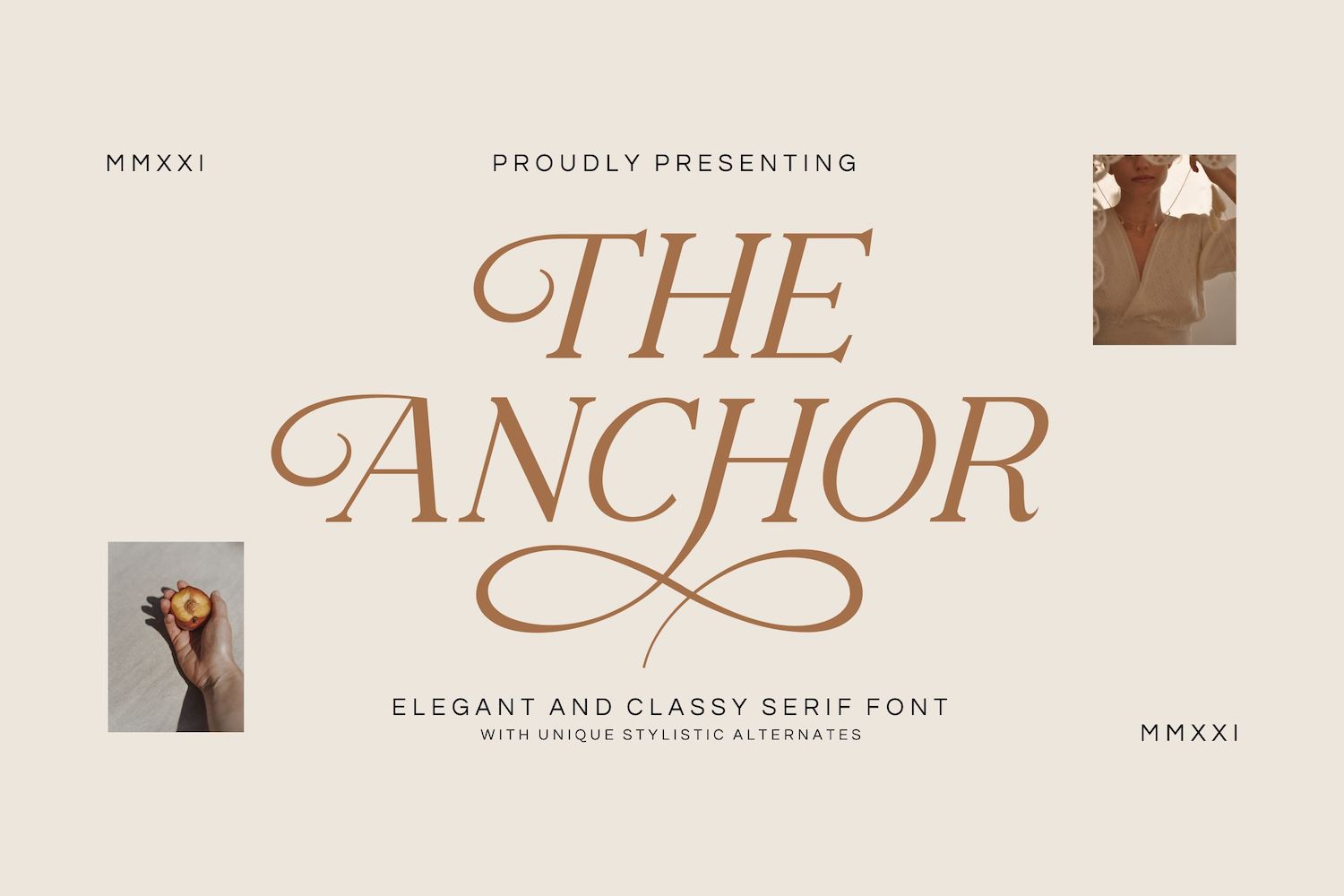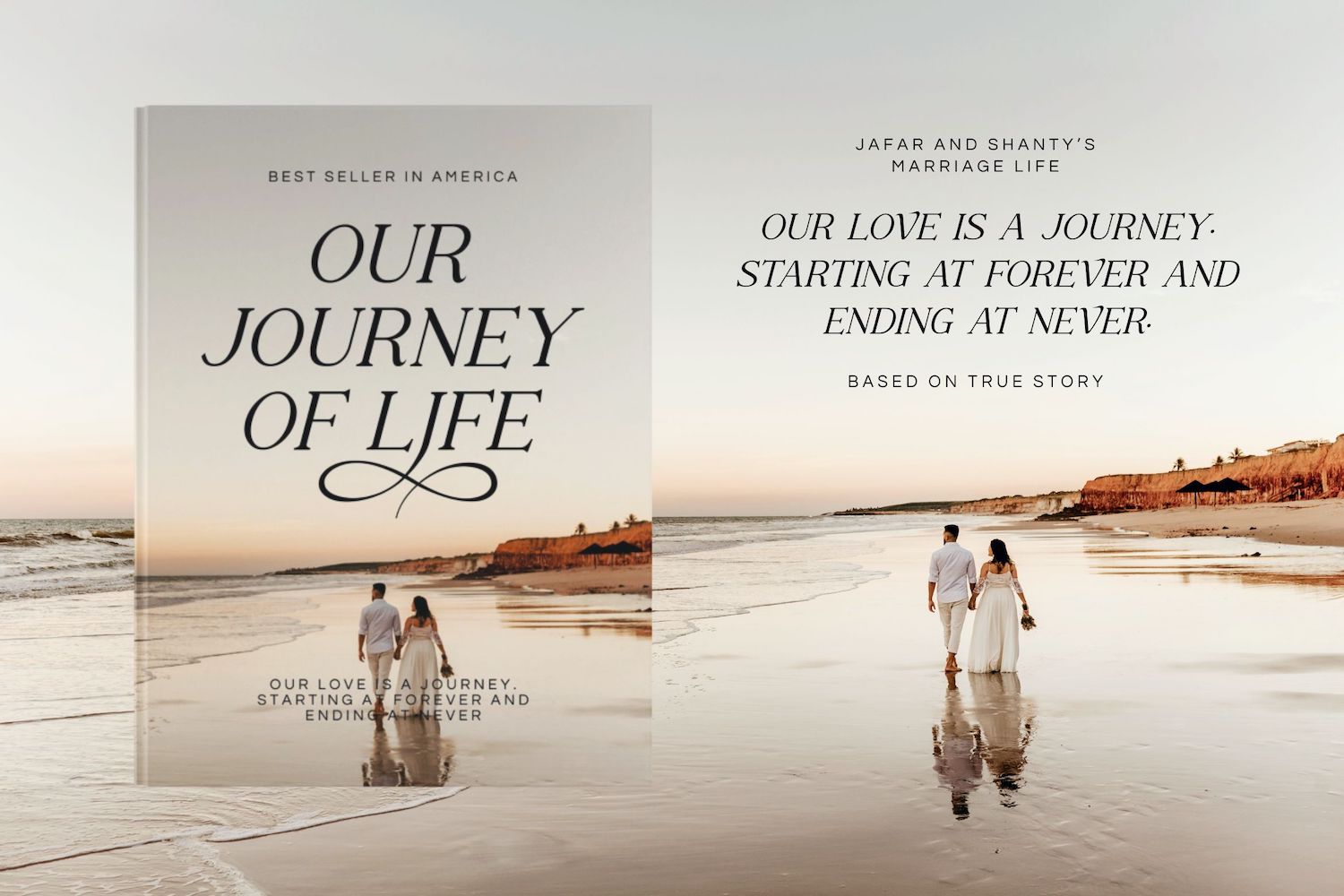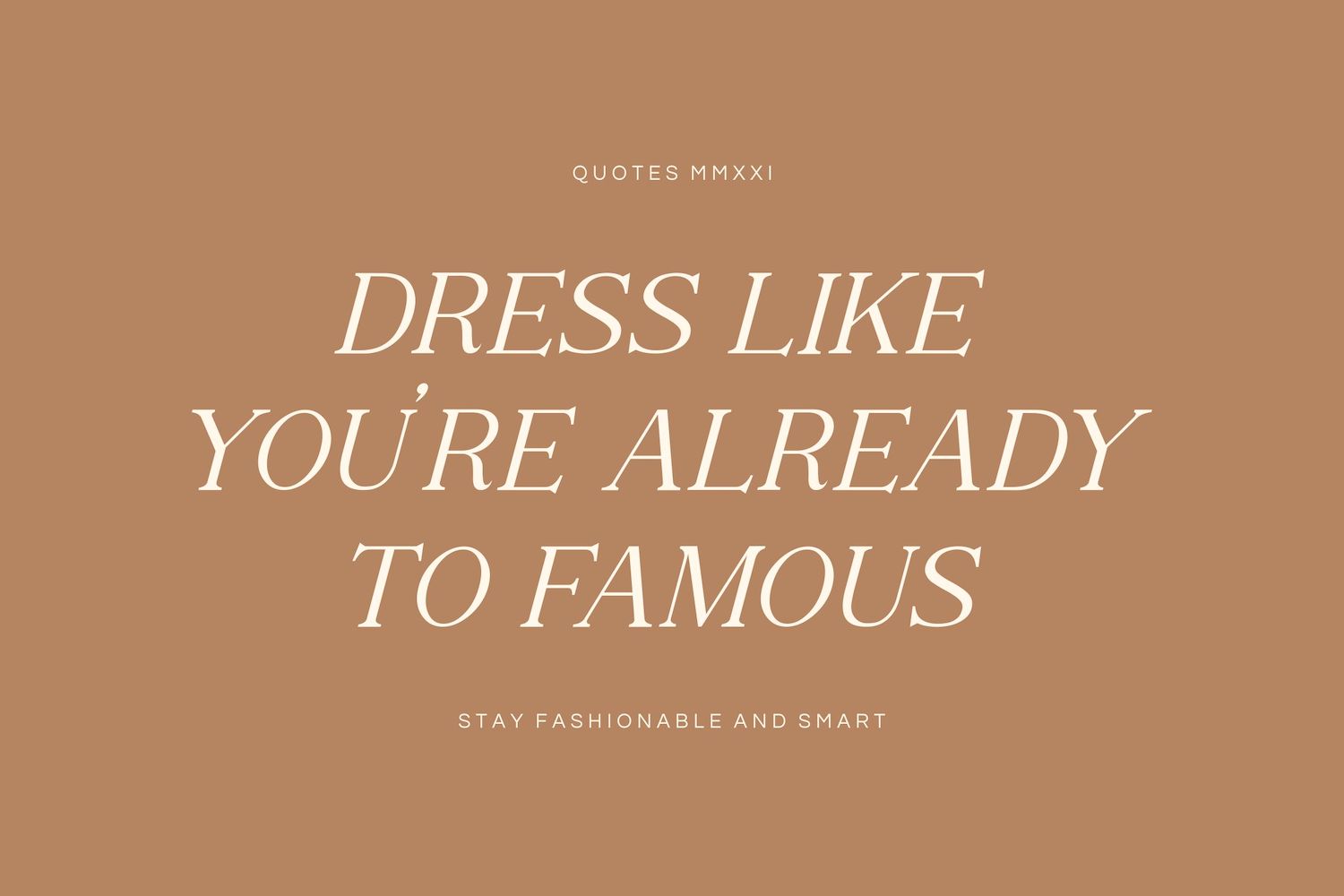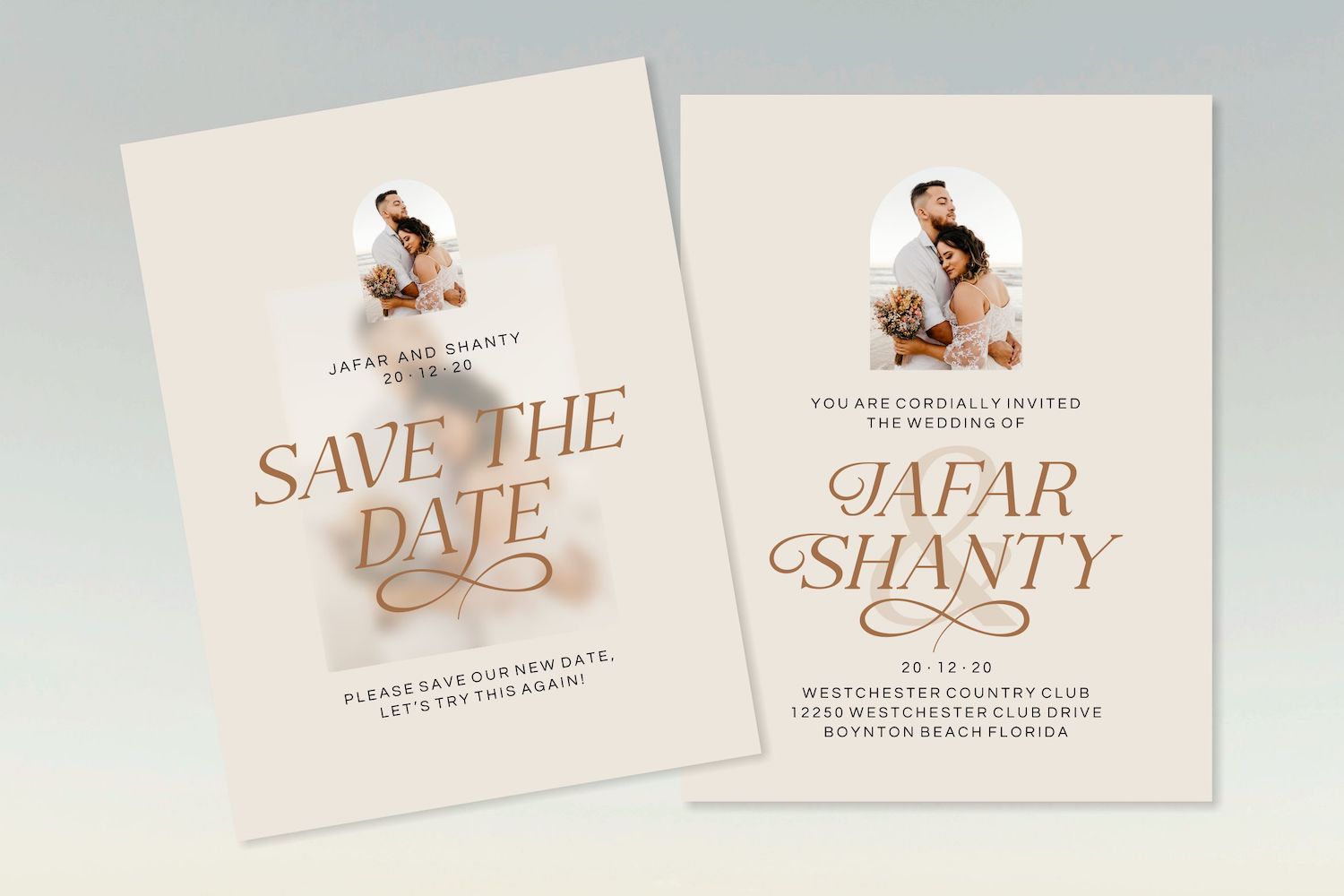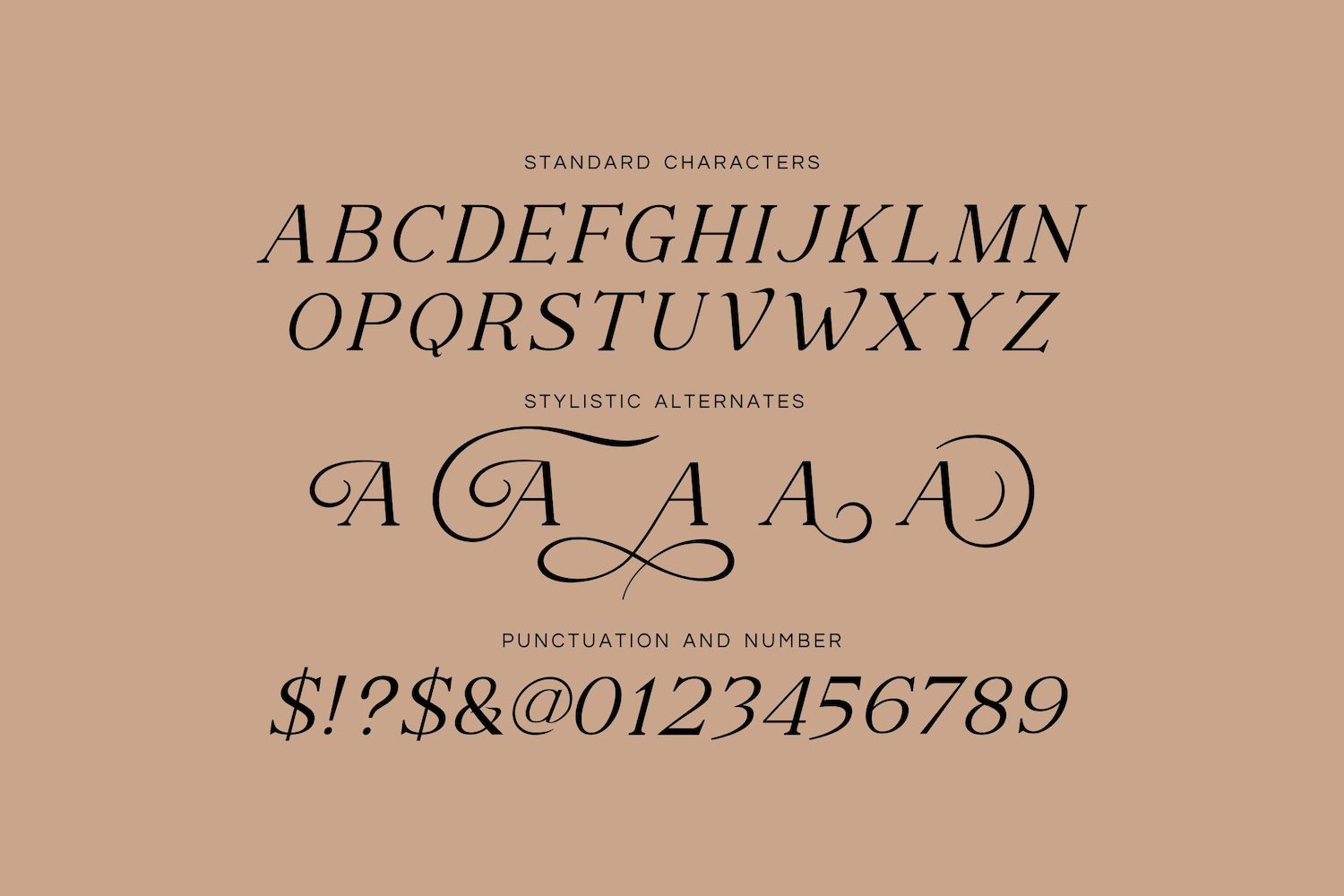
The Anchor is an elegant serif font that radiates timeless sophistication. Its graceful curves and high-contrast strokes make it ideal for refined editorial layouts, romantic wedding invitations, and stylish branding. This font exudes a soft yet powerful presence, capturing both classic beauty and modern finesse in one distinctive typeface.
Featuring unique stylistic alternates and ornamental swashes, The Anchor allows for expressive typographic design with a touch of luxury. Whether you’re designing book covers, social media graphics, or premium packaging, this font elevates every detail with charm and elegance.
The Anchor